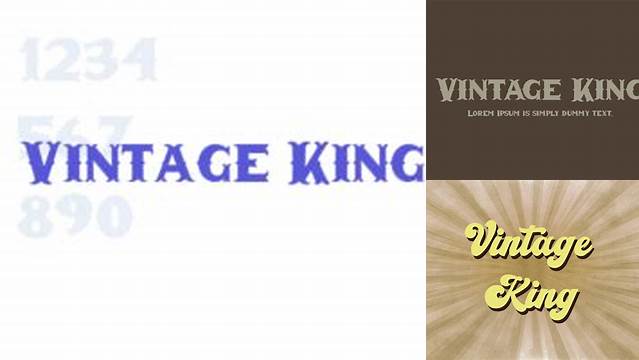
Hey guys! Are you looking to add some serious vintage vibes to your designs? Well, you've come to the right place! We're diving deep into the world of free vintage king fonts, exploring everything from what makes them so awesome to where you can snag them and how to use them like a pro. Get ready to unleash your inner retro designer!
1. What Makes a Font a "Vintage King"?
So, what exactly is a "vintage king font" anyway? It's more than just an old-looking typeface, guys. These fonts evoke a sense of history, craftsmanship, and timeless style. Think classic serifs, bold slab serifs, elegant scripts, and even distressed fonts that look like they've weathered the test of time. Vintage king fonts often feature unique details like swashes, ligatures, and varying stroke weights, adding to their character and charm. They transport you back to different eras, from the roaring twenties to the mid-century modern era, each with its own distinct aesthetic. Understanding these nuances is key to choosing the right vintage king font for your project. Think about the message you want to convey. Are you aiming for sophistication and elegance? Or perhaps a more rugged and industrial feel? The best vintage king fonts capture the essence of a bygone era while remaining versatile and readable for contemporary design. Consider the historical context and the emotions the font evokes to make the right choice for your design.
2. The Allure of Vintage Typography
There's just something undeniably cool about vintage typography, isn't there? The allure stems from its ability to connect us to the past, evoking nostalgia and a sense of authenticity. Vintage king fonts bring a unique personality to your projects that modern fonts often lack. They tell a story, hinting at craftsmanship and a time when things were made with care and attention to detail. This makes them perfect for projects that aim to convey a sense of tradition, quality, or heritage. Plus, let's be honest, they just look plain awesome! Vintage king fonts can add a touch of class and sophistication to anything from logos and branding to posters and packaging. The right font can instantly elevate your design and make it stand out from the crowd. The texture, imperfections, and unique letterforms of vintage king fonts create a visual richness that adds depth and interest. This visual texture can be especially effective in creating a tactile feeling in your designs, making them more engaging and memorable.
4. Top 10 Free Vintage King Fonts
Let's get down to specifics! Here's my top 10 list of free vintage king fonts that you absolutely need to check out:
- Bebas Neue: A classic sans-serif with a vintage feel. Perfect for headlines and posters.
- Playfair Display: An elegant serif font that exudes sophistication.
- Raleway: A versatile sans-serif that works well for both headings and body text.
- Oswald: A condensed sans-serif with a strong, industrial vibe.
- Lora: A well-balanced serif font that's perfect for long-form content.
- Amatic SC: A hand-drawn font that's playful and fun.
- Pacifico: A beautiful script font that adds a touch of elegance.
- ChunkFive: A bold slab serif font that's perfect for making a statement.
- Arvo: A geometric slab serif font that's both modern and vintage.
- League Gothic: A classic condensed sans-serif font with a vintage feel.
These fonts are just a starting point, guys. There are tons of other amazing vintage king fonts out there waiting to be discovered. Experiment, explore, and find the ones that best suit your style and projects.
5. How to Use Vintage Fonts Effectively
Okay, you've got your hands on some awesome vintage king fonts, but how do you actually use them effectively? It's all about balance and context, guys. Vintage fonts are powerful, but they can easily overpower a design if not used carefully. Think about the overall tone and message you want to convey. A highly decorative script font might be perfect for a wedding invitation, but it would look out of place on a website for a tech company. Consider the readability of the font as well. While a distressed font might look cool, it's important to make sure it's still legible, especially for body text. Pairing fonts is another key aspect of using vintage king fonts effectively. Try pairing a bold vintage serif font with a clean, modern sans-serif for a balanced look. Or, use different weights and styles within the same font family to create visual hierarchy. Don't be afraid to experiment, but always keep the overall design in mind. Finally, think about the color palette you're using. Vintage king fonts often look great with muted, earthy tones or classic color combinations like black and white or navy and gold. By considering these factors, you can use vintage king fonts to create stunning designs that are both timeless and effective.
6. Matching Vintage Fonts with Modern Design Trends
One of the coolest things about vintage king fonts is how well they can blend with modern design trends. It's all about creating a compelling juxtaposition, guys. Think about pairing a classic serif font with a minimalist layout or using a distressed font in a digital context. The contrast between the old and the new can be incredibly striking. For example, you could use a bold vintage king font for a logo and then pair it with a clean, modern sans-serif for the website's body text. This creates a visual hierarchy and a sense of balance. Another trend is to use vintage king fonts in combination with bold colors and geometric shapes. This can create a playful and eye-catching design that feels both retro and contemporary. The key is to experiment and find the right balance between the vintage and modern elements. Don't be afraid to push the boundaries and try new things. By combining vintage king fonts with modern design trends, you can create truly unique and memorable designs.
7. The Psychology Behind Vintage Typography
Ever wondered why vintage king fonts evoke such strong emotions? It's all about psychology, guys! Vintage typography taps into our nostalgia for the past, bringing back memories of different eras and styles. These fonts can evoke feelings of authenticity, craftsmanship, and quality, making them perfect for brands that want to connect with their audience on an emotional level. For example, a vintage king font might be used for a brand that specializes in handmade goods or a company with a long history. The font helps to tell the story of the brand and create a sense of trust and credibility. Different vintage king fonts can evoke different emotions as well. A script font might feel elegant and sophisticated, while a distressed font might feel more rugged and authentic. Understanding the psychology behind vintage typography can help you choose the right font for your project and create a design that resonates with your target audience. By considering the emotions you want to evoke, you can use vintage king fonts to create a powerful and memorable brand identity.
8. Vintage Fonts in Branding and Logo Design
When it comes to branding and logo design, vintage king fonts are a total game-changer. They can instantly give your brand a unique and memorable identity, guys. A well-chosen vintage king font can communicate the history, values, and personality of your brand in a single glance. Think about some of the most iconic vintage-inspired logos out there – they often feature classic serifs, bold slab serifs, or elegant scripts. The key is to choose a vintage king font that aligns with your brand's message and target audience. For example, if you're creating a logo for a barbershop, you might choose a classic slab serif font that evokes a sense of tradition and masculinity. On the other hand, if you're designing a logo for a high-end boutique, you might opt for an elegant script font that feels sophisticated and luxurious. In addition to the font itself, consider the overall design and how the font interacts with other elements like colors, shapes, and imagery. The goal is to create a logo that is not only visually appealing but also communicates the essence of your brand. By using vintage king fonts strategically, you can create a brand identity that is both timeless and impactful.
Need to make a bold statement? Slab serif vintage king fonts are your go-to, guys! These fonts, characterized by their thick, block-like serifs, exude strength, confidence, and a touch of retro cool. Slab serifs were popular in advertising and signage in the 19th and 20th centuries, making them perfect for designs that aim to capture that vintage aesthetic. Think about old-school posters, vintage packaging, and industrial logos – slab serifs were a staple. But how do you best use these powerful fonts? Slab serifs are great for headlines, logos, and other display text where you want to grab attention. They can also work well for shorter blocks of body text, but be mindful of readability if you're using a particularly heavy slab serif. Consider the overall tone of your design. Slab serifs can range from rugged and industrial to clean and modern, so choose a font that matches your message. Pairing slab serifs with contrasting fonts, like a clean sans-serif, can create a visually dynamic and balanced look. Don't be afraid to experiment with different weights and styles of slab serifs to find the perfect fit for your project. A well-chosen slab serif vintage king font can add a punch of personality and make your design unforgettable.
20. Sans-Serif Vintage Fonts: Clean and Classic
While serifs often scream